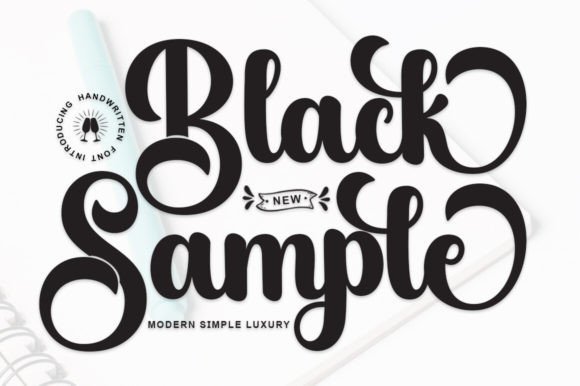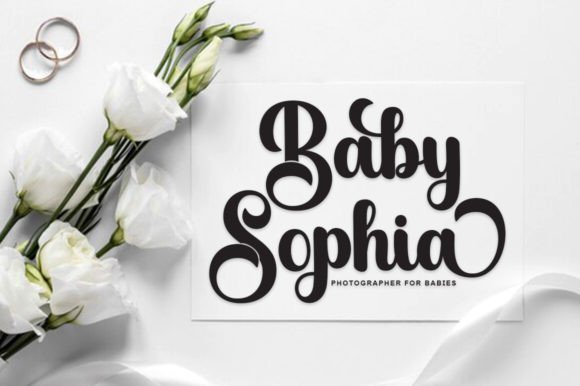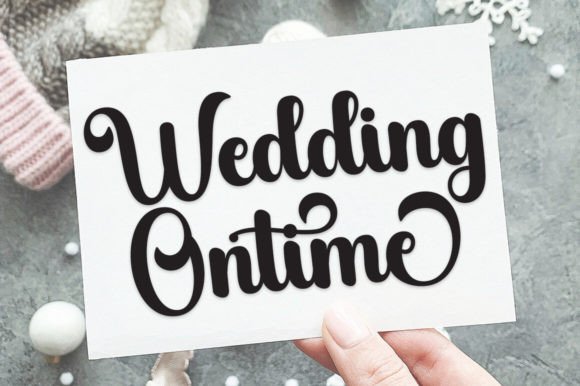
Black Sample Font
About the Black Sample Font
Discover the charm of Black Sample Font. This font is a perfect blend of modern aesthetics and classic appeal. Black Sample feels equally charming and elegant. This stunning script font is a stylish homage to classic calligraphy. It will elevate any design project to the highest level, be it branding, titles, wedding designs, invitations, signs, logos, labels and more!
Black Sample Font excels in applications requiring a touch of refined elegance, such as logotypes, short headlines, and invitations. Its graceful curves are best showcased in larger sizes where detail is easily appreciated. Avoid using it for body text or lengthy paragraphs; its intricate forms can become visually overwhelming at smaller sizes and hinder readability.
This script font’s personality is sophisticated and classic, lending itself well to brands seeking a timeless and luxurious aesthetic. Consider pairing it with a clean sans-serif like Montserrat for a modern contrast, or a subtle serif like Garamond for a more traditional feel. For a touch of playful contrast, a simple geometric sans-serif like Futura could work well in supporting text.
Pairing Black Sample with a complementary font will enhance its impact and ensure design clarity. Remember to maintain sufficient contrast between the fonts in terms of weight and style for optimal legibility.
Black Sample Font Usage Examples
Black Sample Font Example